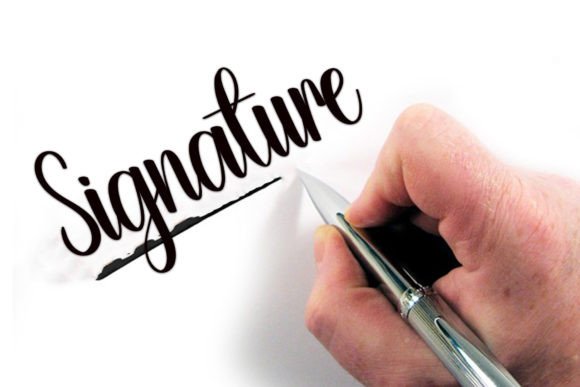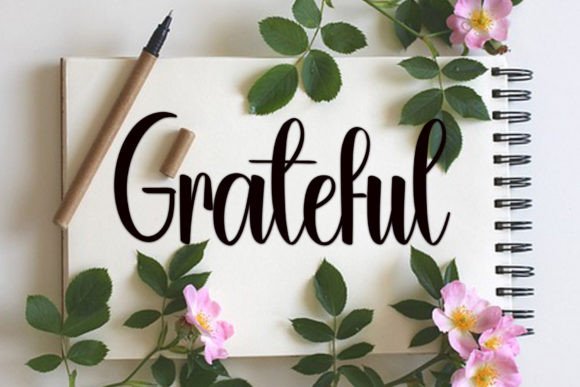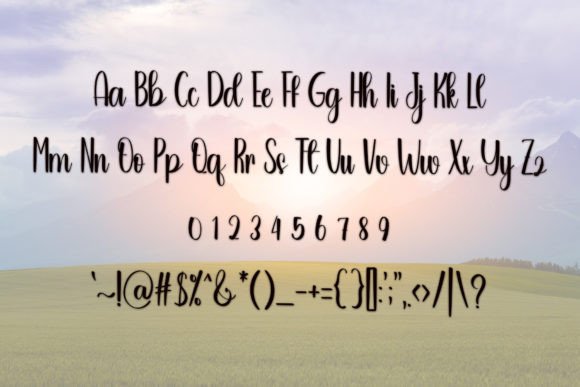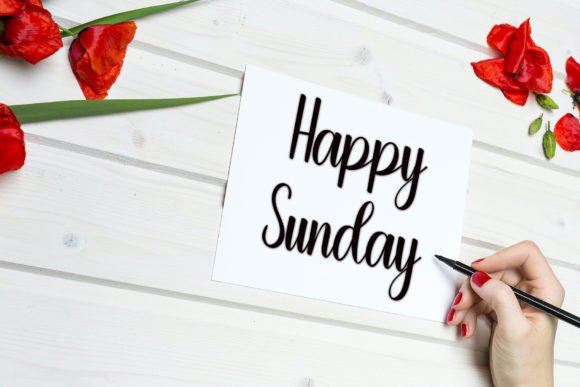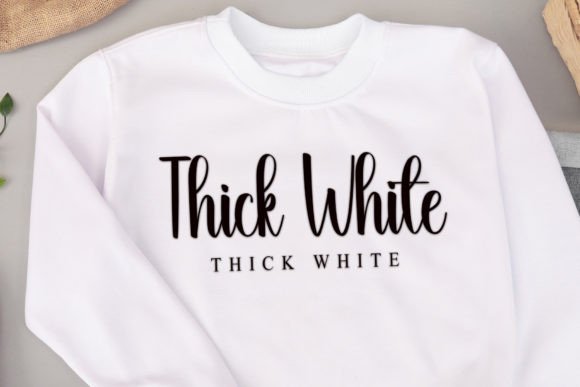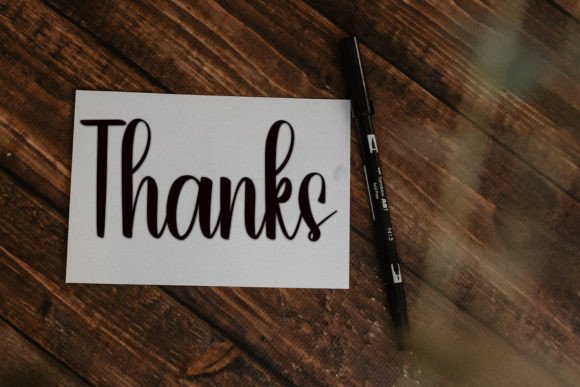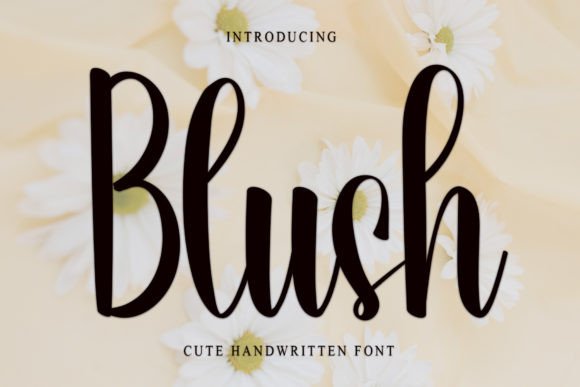
The Blush Font: A Timeless Beauty for Your Design Projects
I’ll never forget the time I was working on a project for a client’s wedding invitation. I had a clear vision of what I wanted to create, but there was one major hurdle: finding the perfect font. I scrolled through page after page of Google results, but nothing seemed quite right. That was until I stumbled upon the Blush font. Its elegant, handwritten curves immediately caught my eye, and I knew I had found the one. In this article, I’ll share my love for the Blush font, its features, and how to make the most of it in your designs.
An Honest Review of Blush Font
What I Love About Blush Font
• ✨ Elegant and sophisticated: The Blush font exudes a sense of refinement and poise, making it perfect for high-end designs.
• ✅ Highly legible: Despite its elegant nature, the Blush font remains clear and easy to read, even at smaller sizes.
• 💕 Versatile: From wedding invitations to branding and packaging, the Blush font can adapt to a wide range of design projects.
• 🎨 Beautifully crafted: The attention to detail in the Blush font is evident, with beautifully crafted letterforms and subtle nuances.
While the Blush font is incredibly beautiful, there are a few things to keep in mind:
• ⚠️ Limited use in body text: Due to its elegant nature, the Blush font may not be the best choice for longer blocks of text. It’s better suited for headings, titles, and short paragraphs.
• 🤔 Not ideal for very small sizes: While the Blush font remains legible at smaller sizes, it may lose some of its elegance and sophistication. It’s best used at larger sizes where its beauty can shine.
3. Experiment with OpenType features, such as ligatures and stylistic alternates, to add more personality to your text.
The Story Behind Blush Font
The Blush font was created by a talented type designer who wanted to craft a font that would evoke the feeling of romance and elegance. Inspired by classic calligraphy and handwritten scripts, the Blush font was designed to be both beautiful and functional. With its unique blend of curves and lines, the Blush font has become a popular choice among designers and crafters.
What is the Blush font best used for? The Blush font is perfect for designs that require an elegant and sophisticated touch, such as wedding invitations, branding, and packaging.
Is the Blush font suitable for body text? While the Blush font is beautiful, it’s not ideal for long blocks of body text. It’s better suited for headings, titles, and short paragraphs.